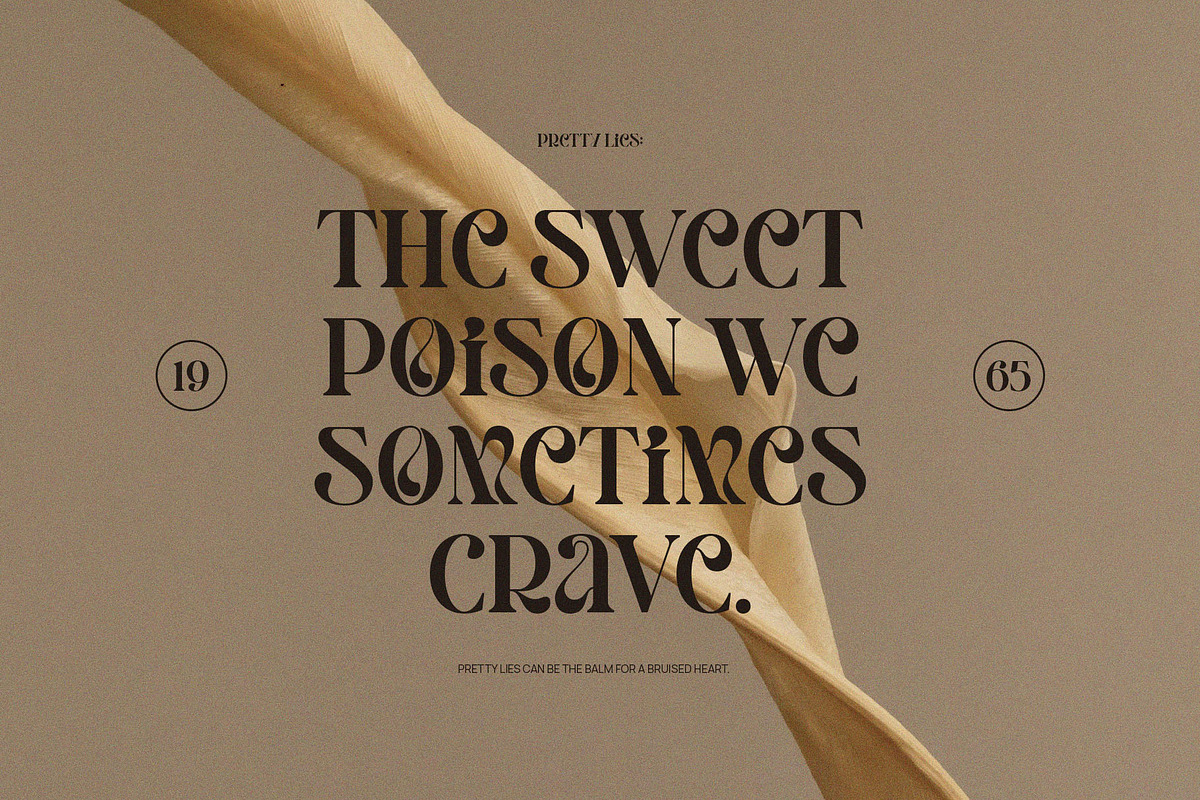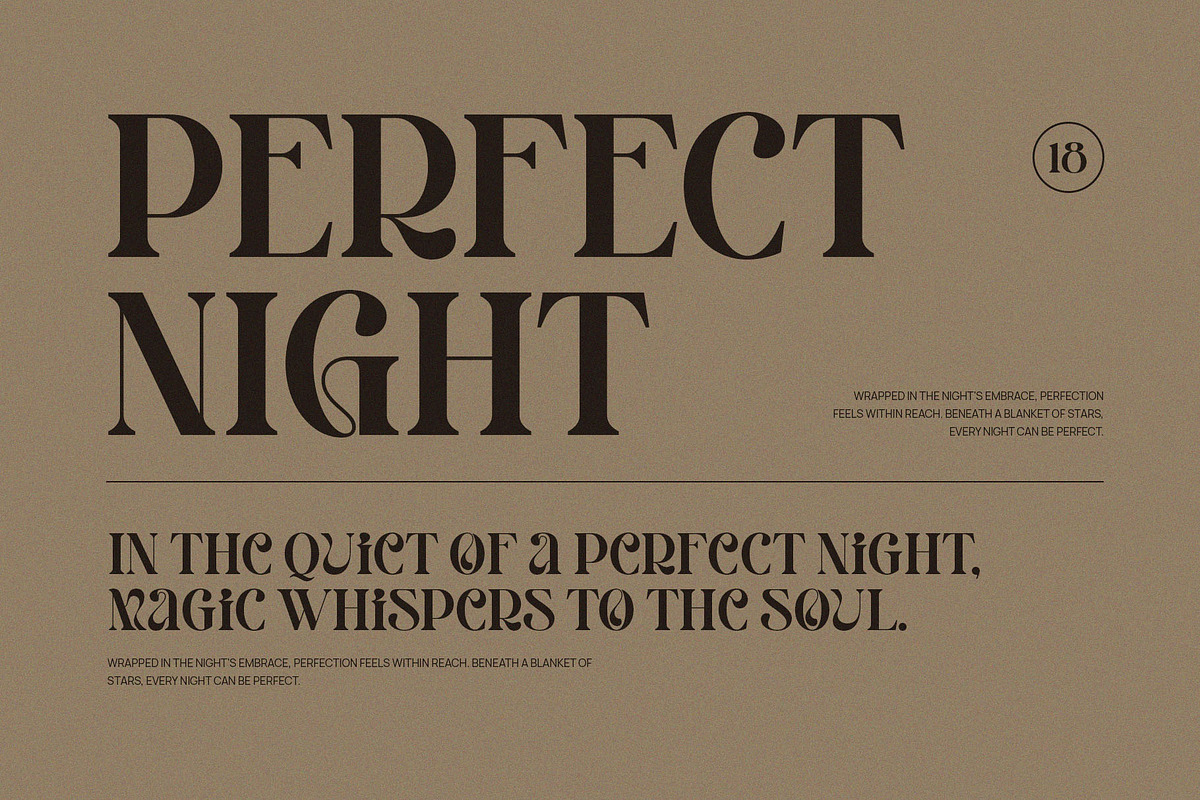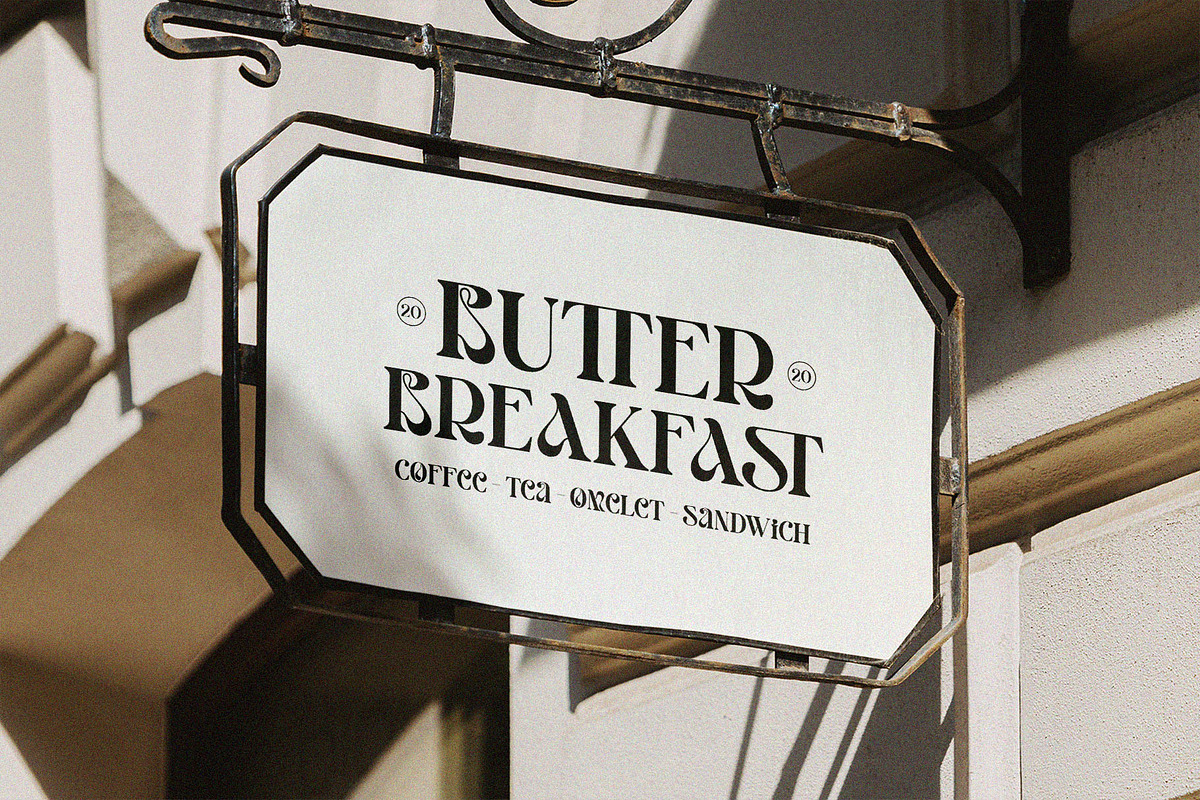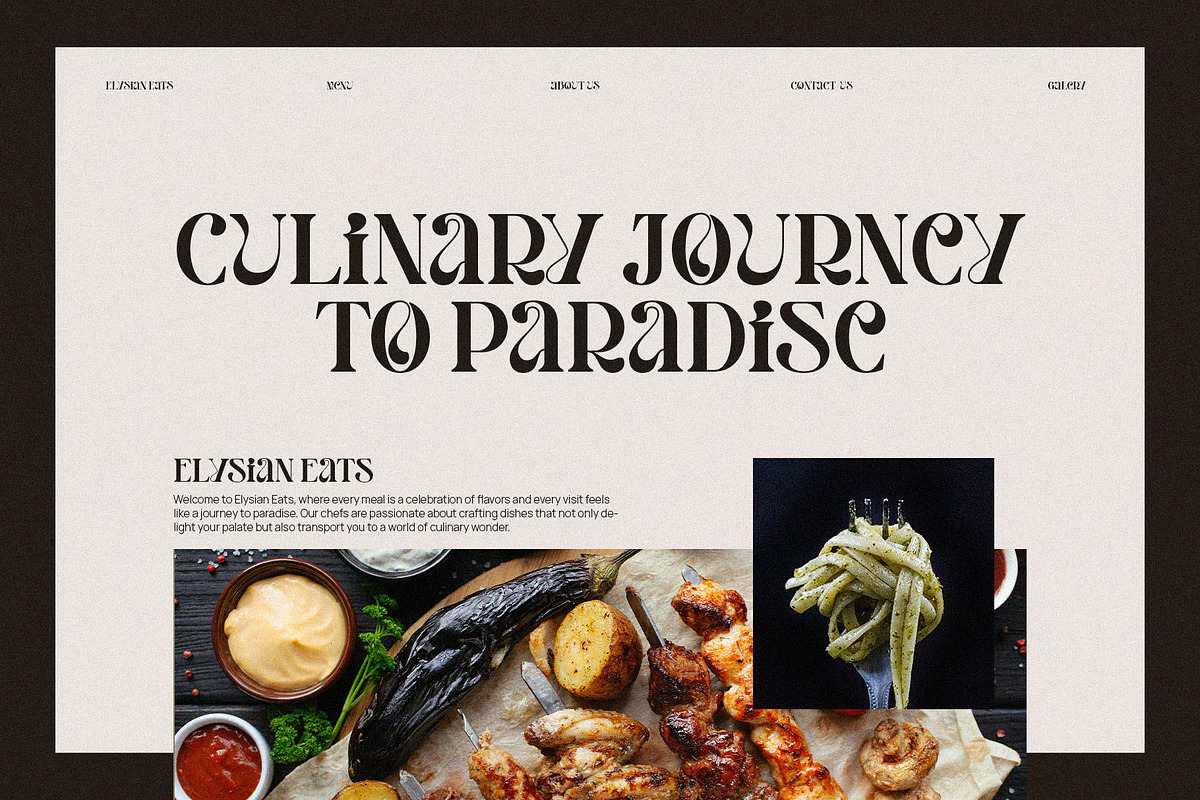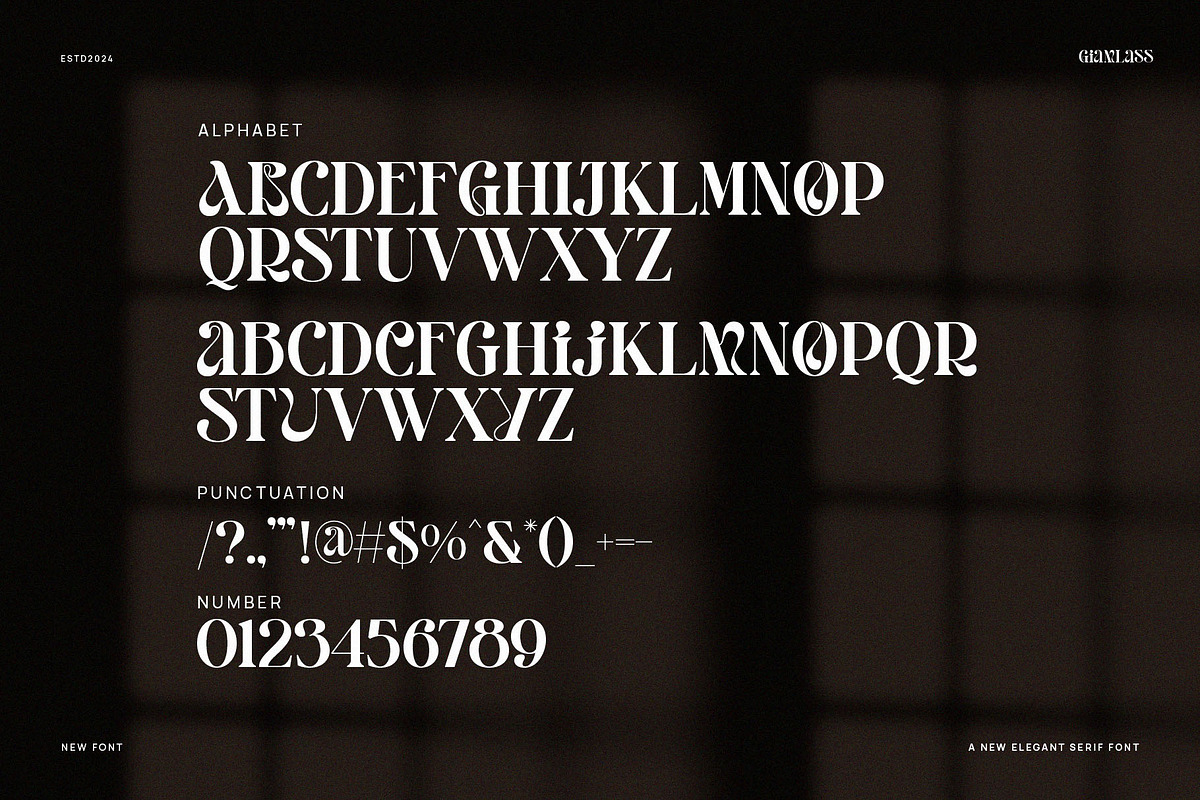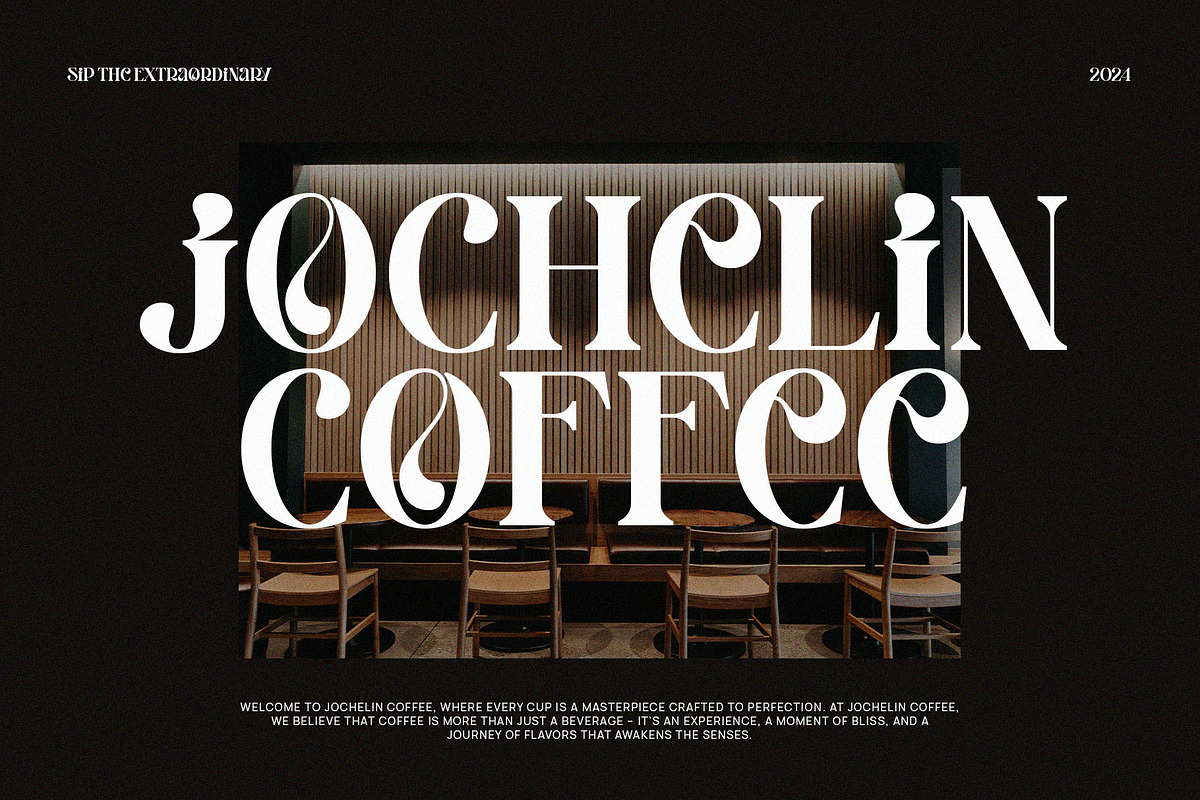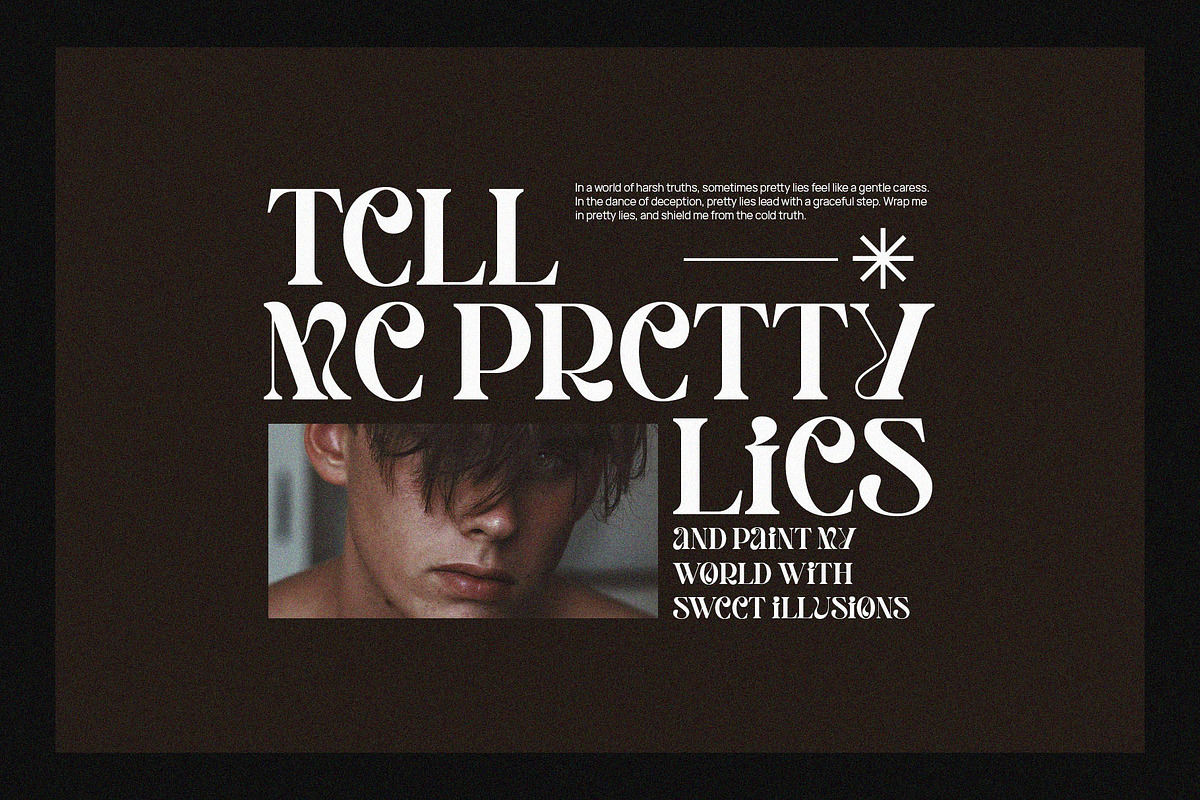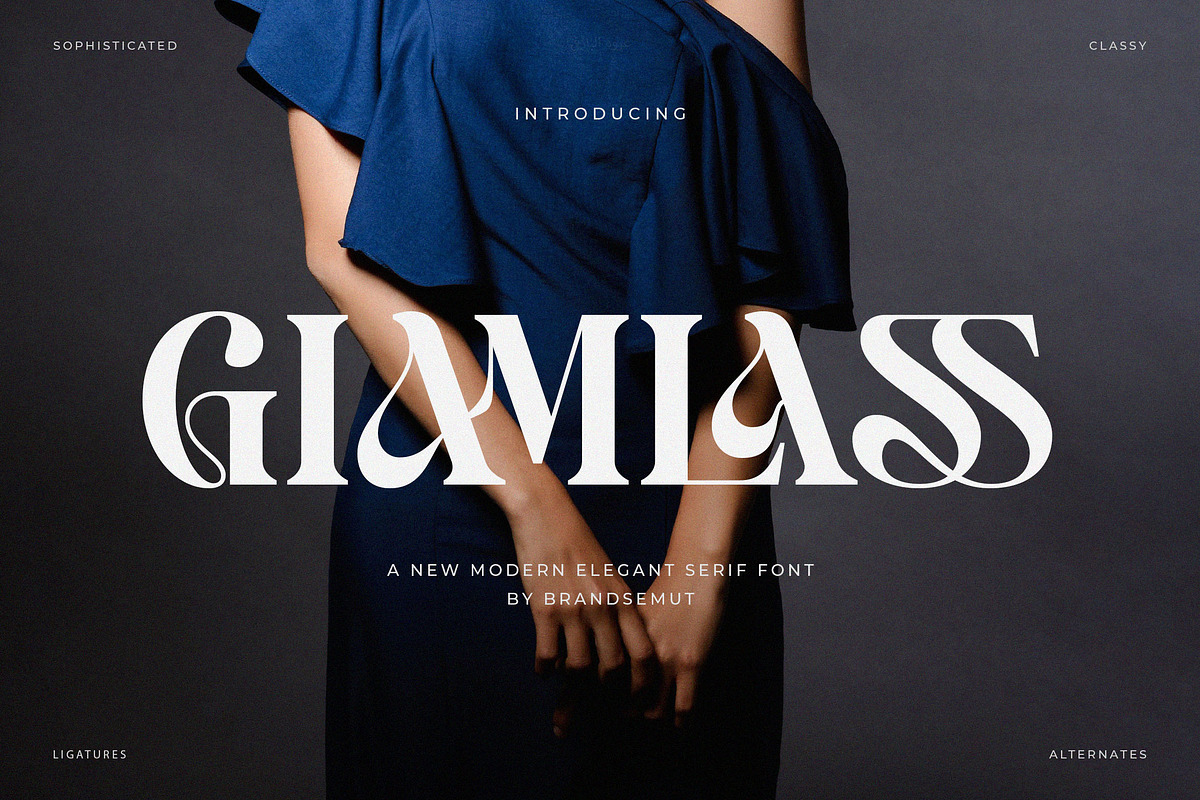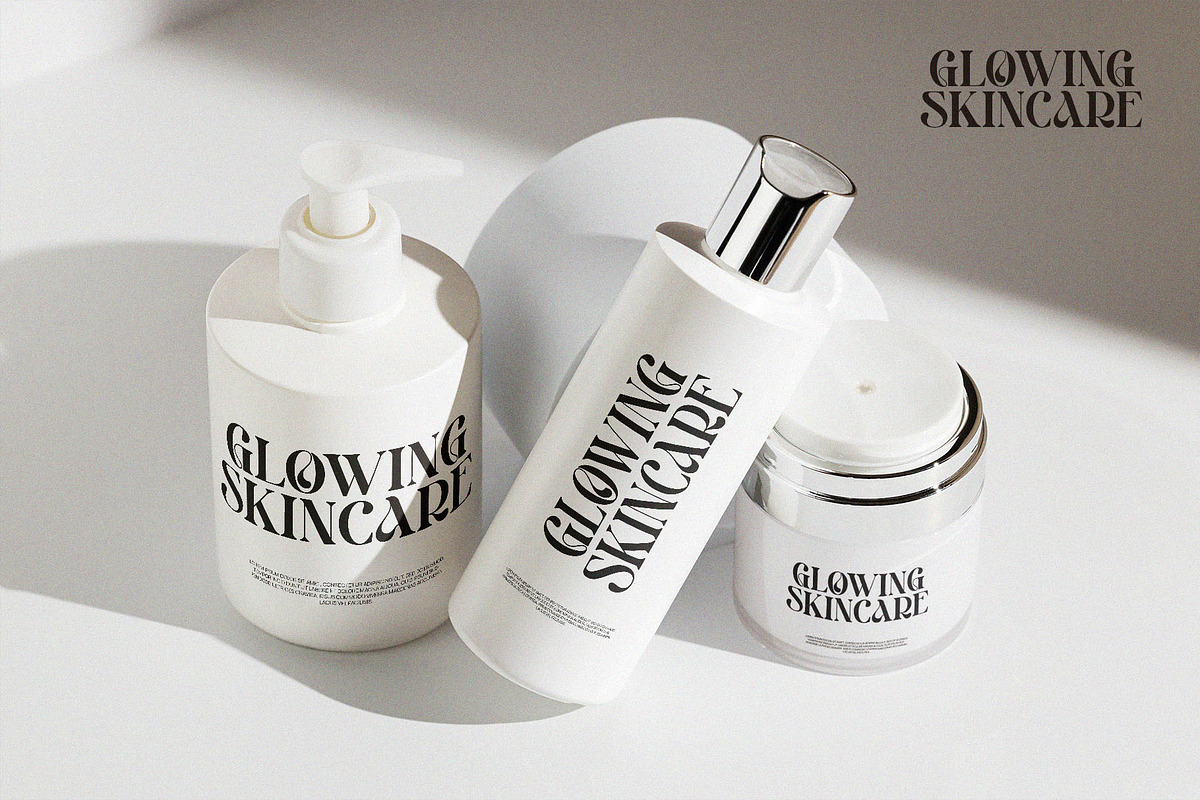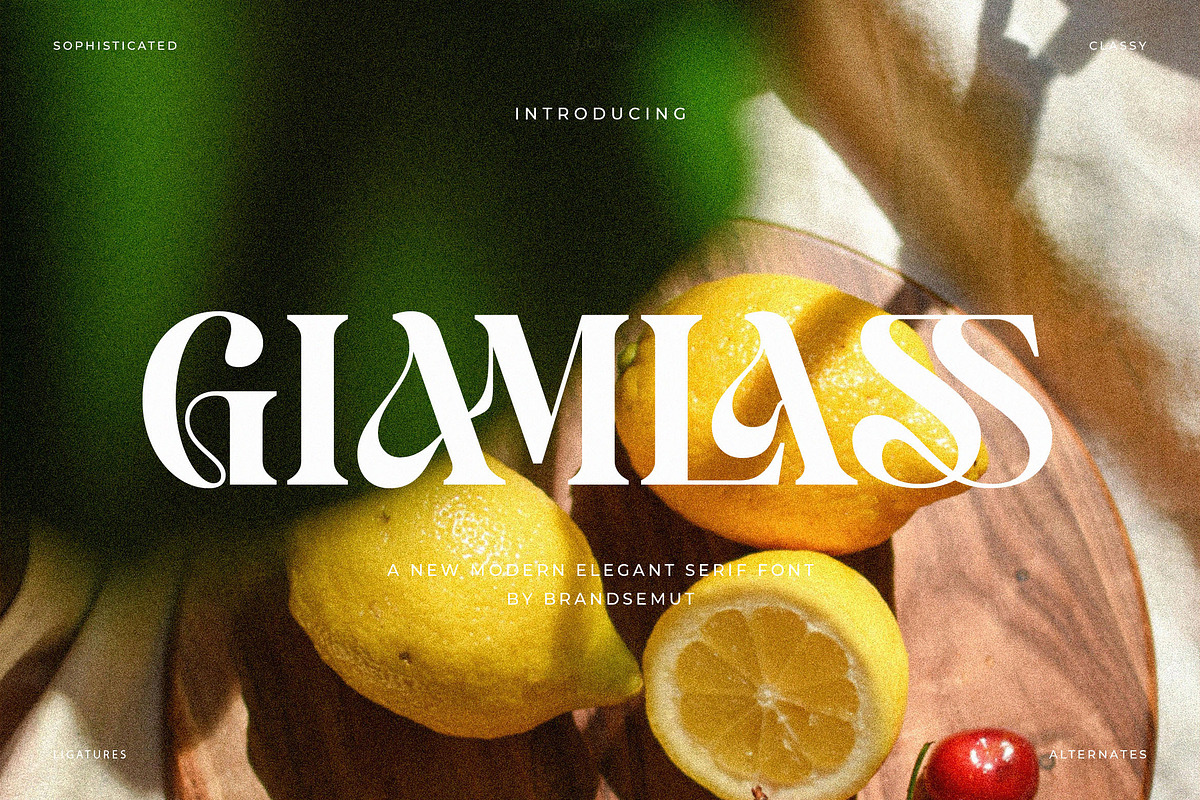
Giamlass - Unique Display Serif
Introducing Giamlass Unique Display Serif. Giamlass is a elegant, classy and modern display serif, best used as a display for headings, logos, branding, magazines, product packaging and invitations. Giamlass equipped with Ligature and many Alternates and come with clean lines and smooth curves give any project an extra touch of class.